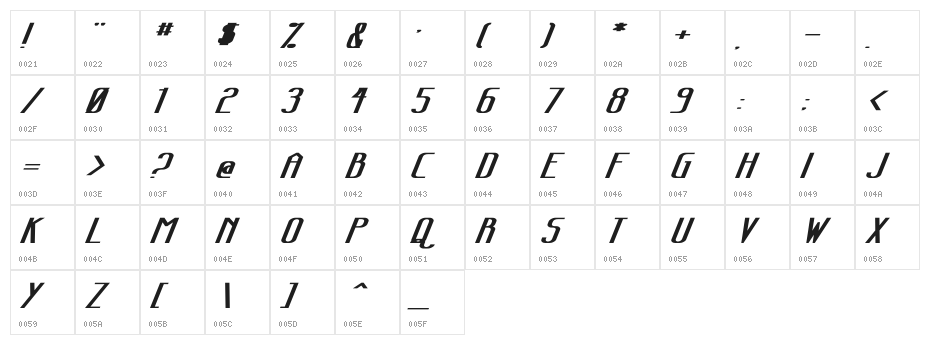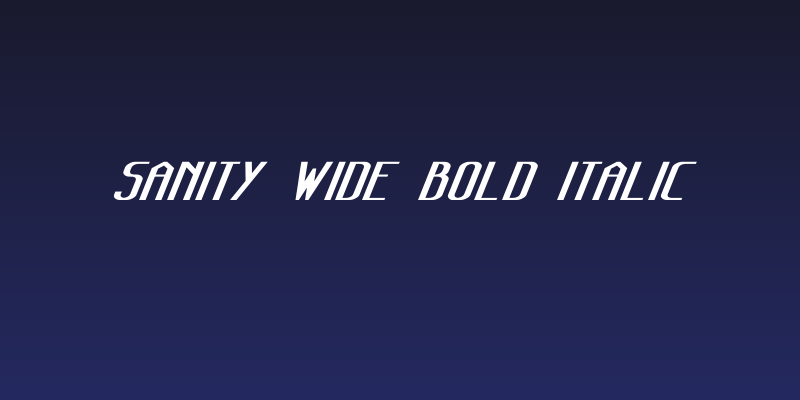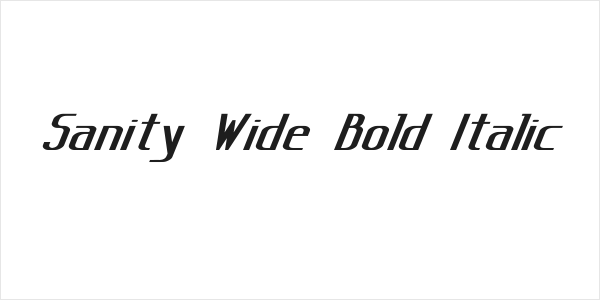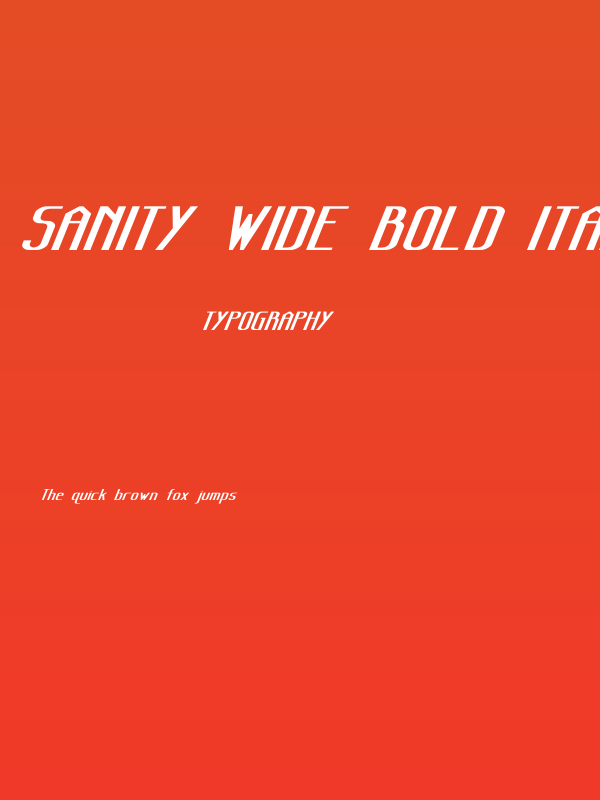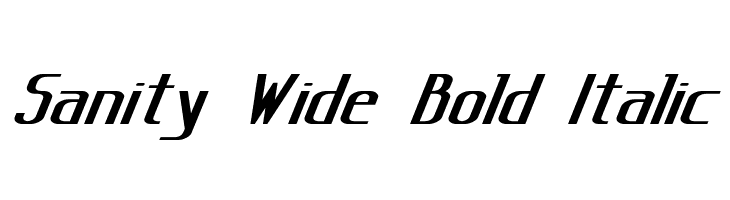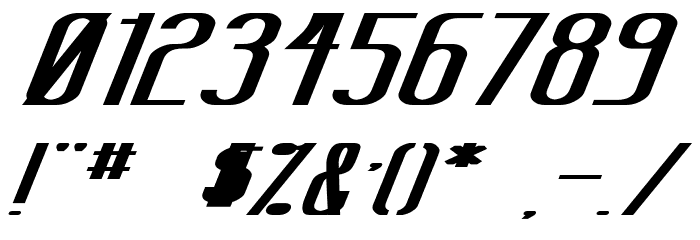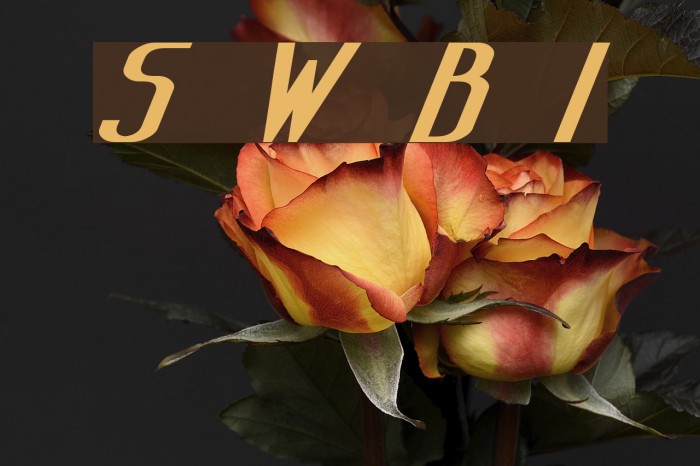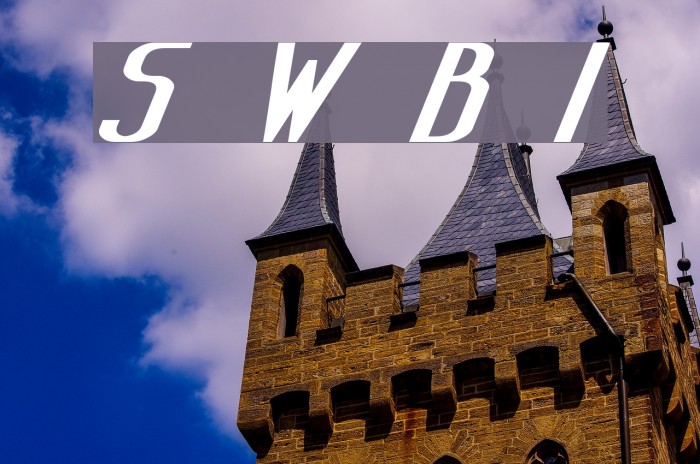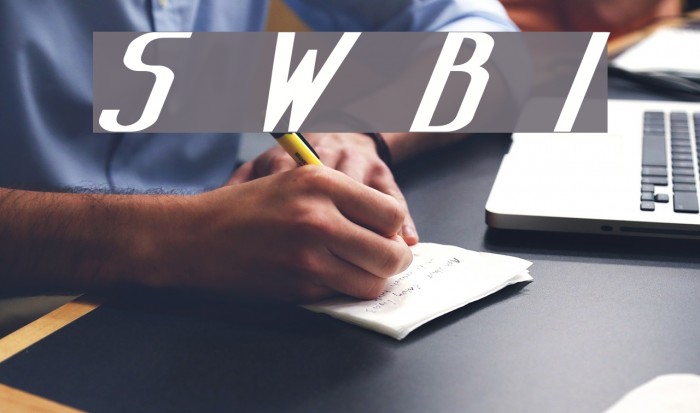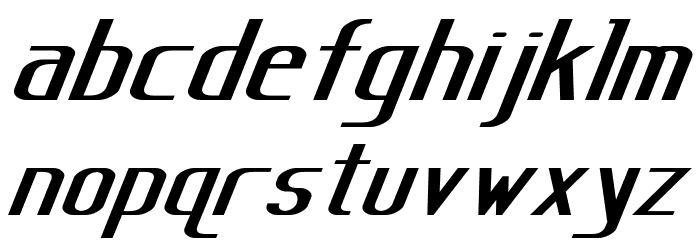
Sanity Wide Bold Italic Font
Sanity Wide Bold Italic Description
This font features a bold and italicized style with a distinctly wide appearance. The characters are elongated and slightly slanted, giving a dynamic and modern feel. The uppercase letters are tall and assertive, while the lowercase letters maintain a consistent flow with a similar slant. The numerals are bold and clear, ensuring readability. Special characters are designed to match the overall aesthetic, providing a cohesive look across all glyphs. The font's boldness and width make it stand out, ideal for attention-grabbing designs.